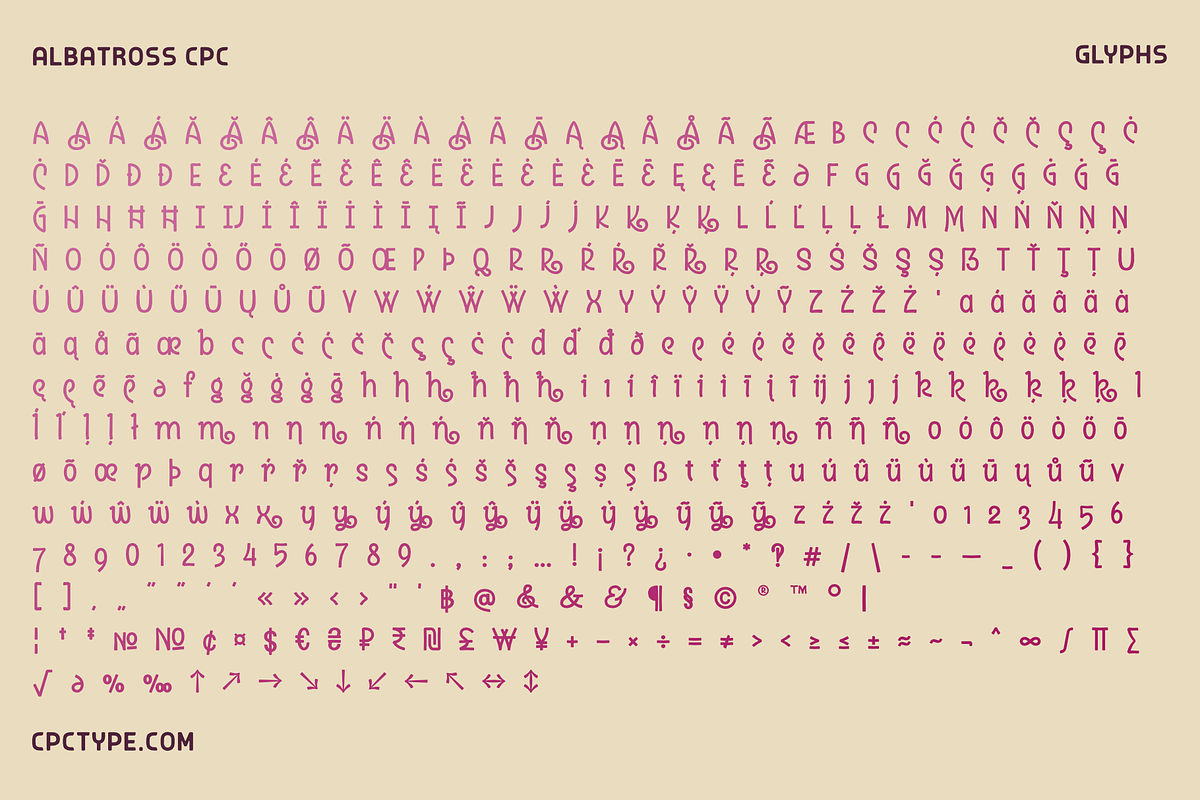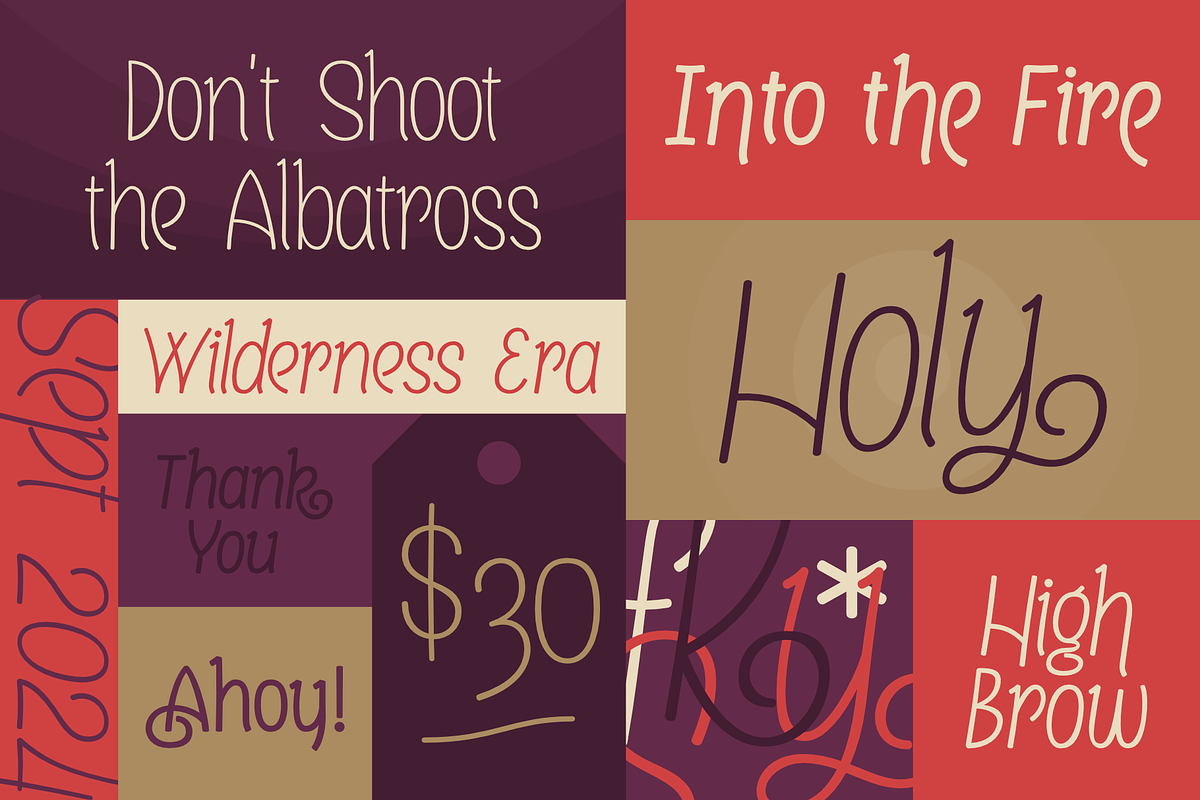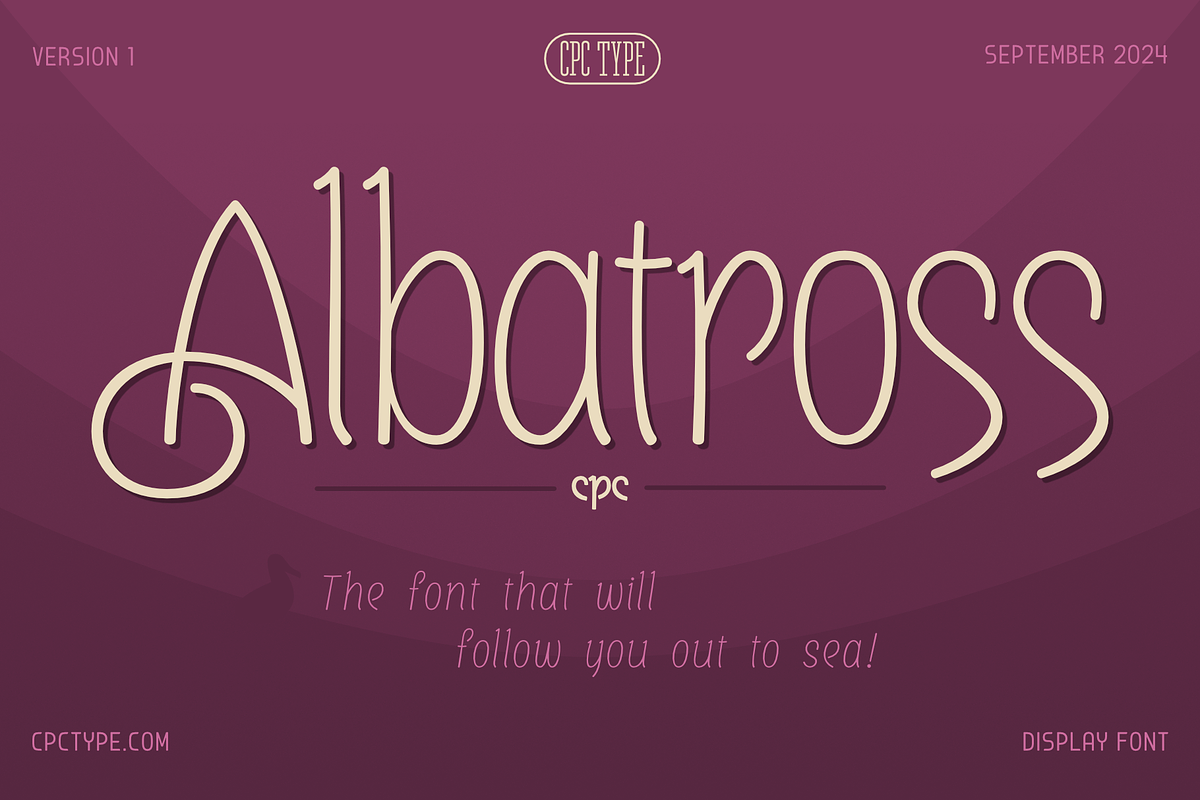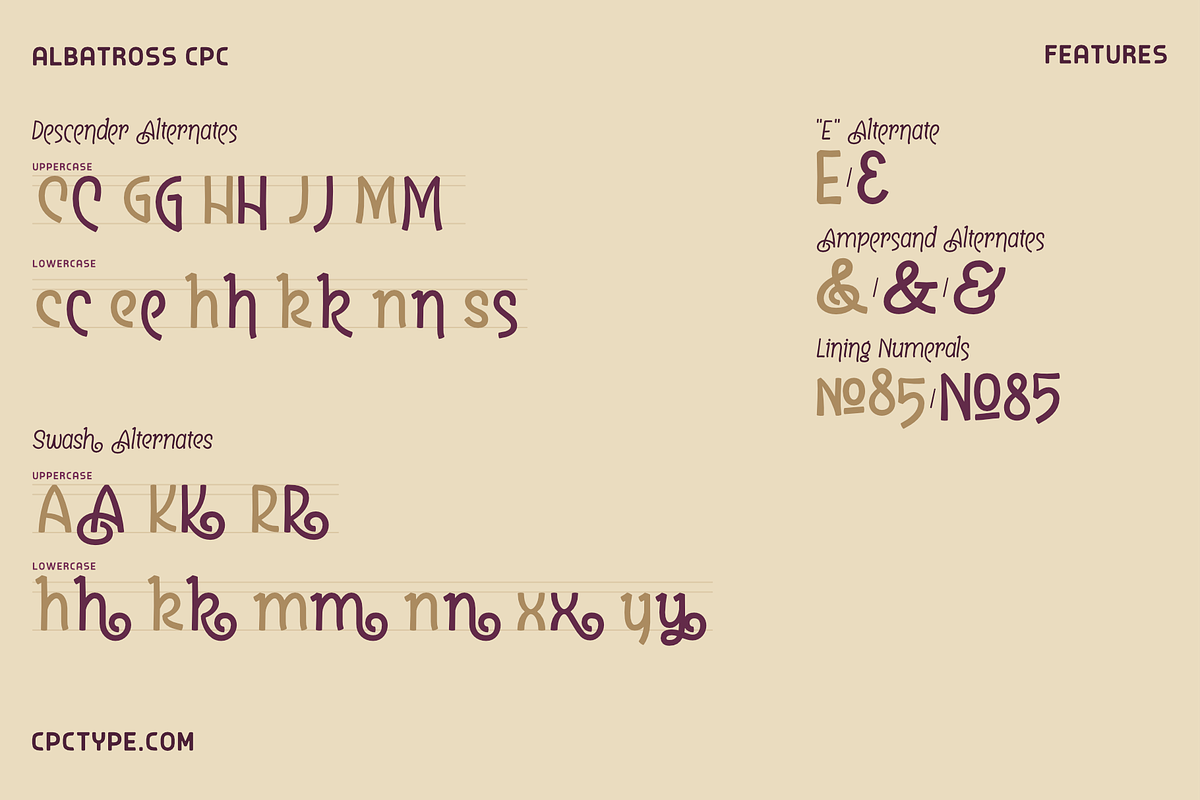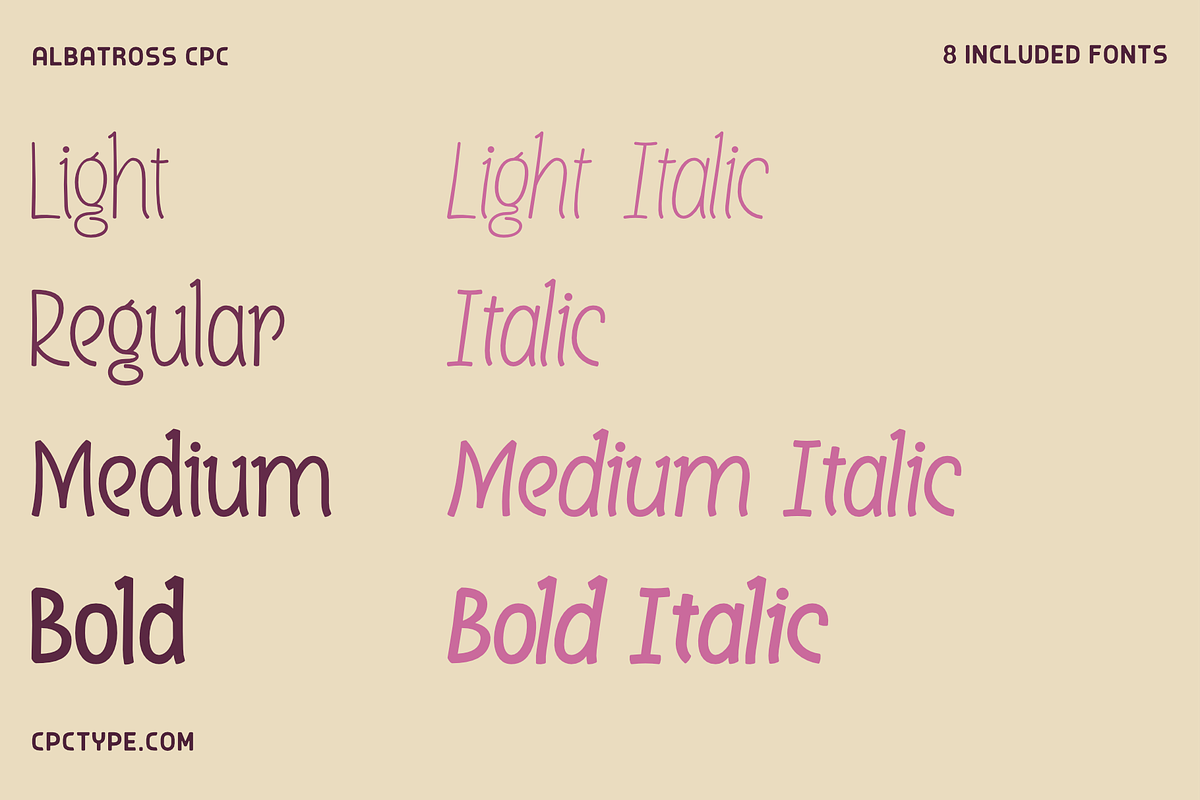
Albatross CPC
The font that will follow you out to sea!
One of my favorite bands growing up in the 90s was Smashing Pumpkins. They used a font with an art nouveau style called Art Gothic for their band name logo, which I really liked. I attempted to sketch out Albatross CPC with the memory of that font and the band's music in mind. However, when I compared the two, it didn't resemble Art Gothic at all. Instead, it turned into more of a tribute to Art Nouveau.
4 Weights
- Light
- Medium
- Bold
Glyphs
- 490 glyphs
- Uppercase and lowercase glyphs
- Numbers, symbols, and punctuations
- Extended language support
- Alternate descender glyphs with corresponding accent glyphs
- Alternate swash glyphs with corresponding accent glyphs
- Alternate "E" with corresponding accent glyphs
- Your pick of good-looking ampersands
- Old-Style (lowercase) & Lining (uppercase) numbers
Ideas for Usage
- Classy looking office memos
- Lyric Music Videos
- Large type size poetry
- Your upcoming Great Gatsby themed birthday party
- Smashing Pumpkins cover band logo